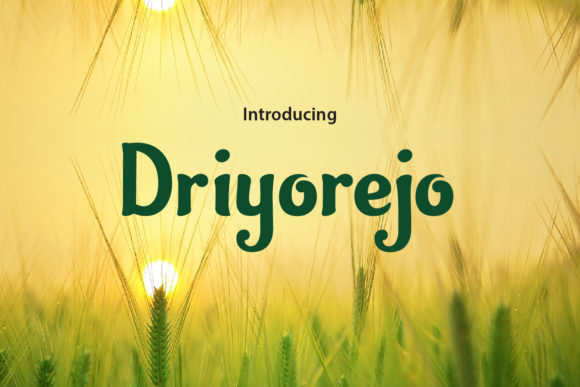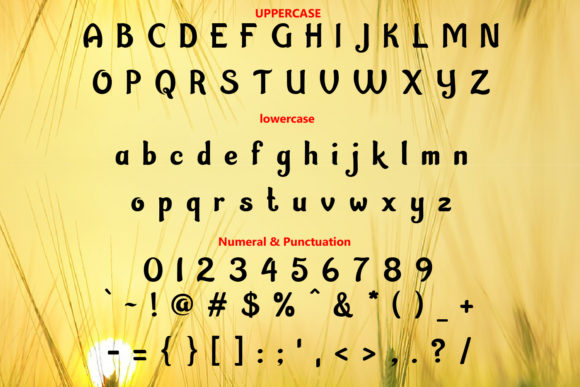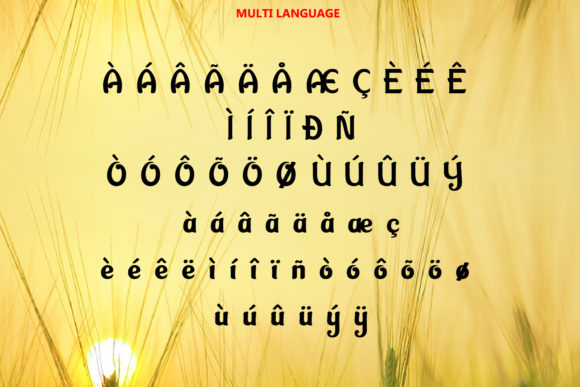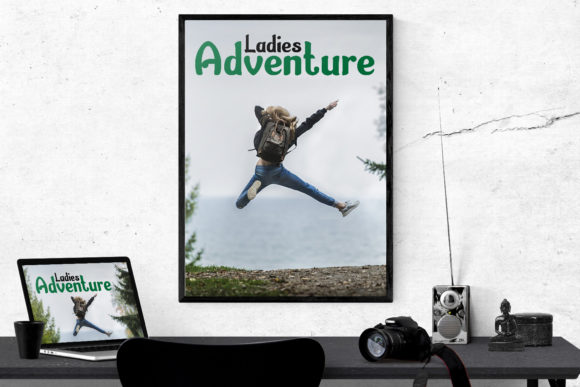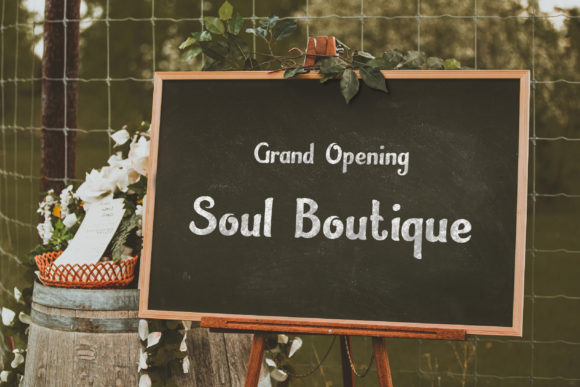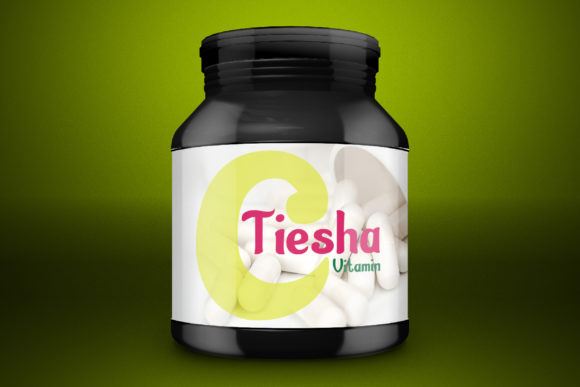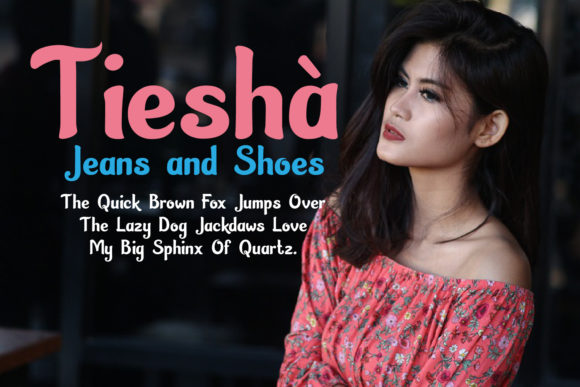
Driyorejo Font
About Driyorejo Font
Driyorejo embodies fun, quirkiness and authenticity. This enchanting handwritten font will turn any creative idea into a true standout.